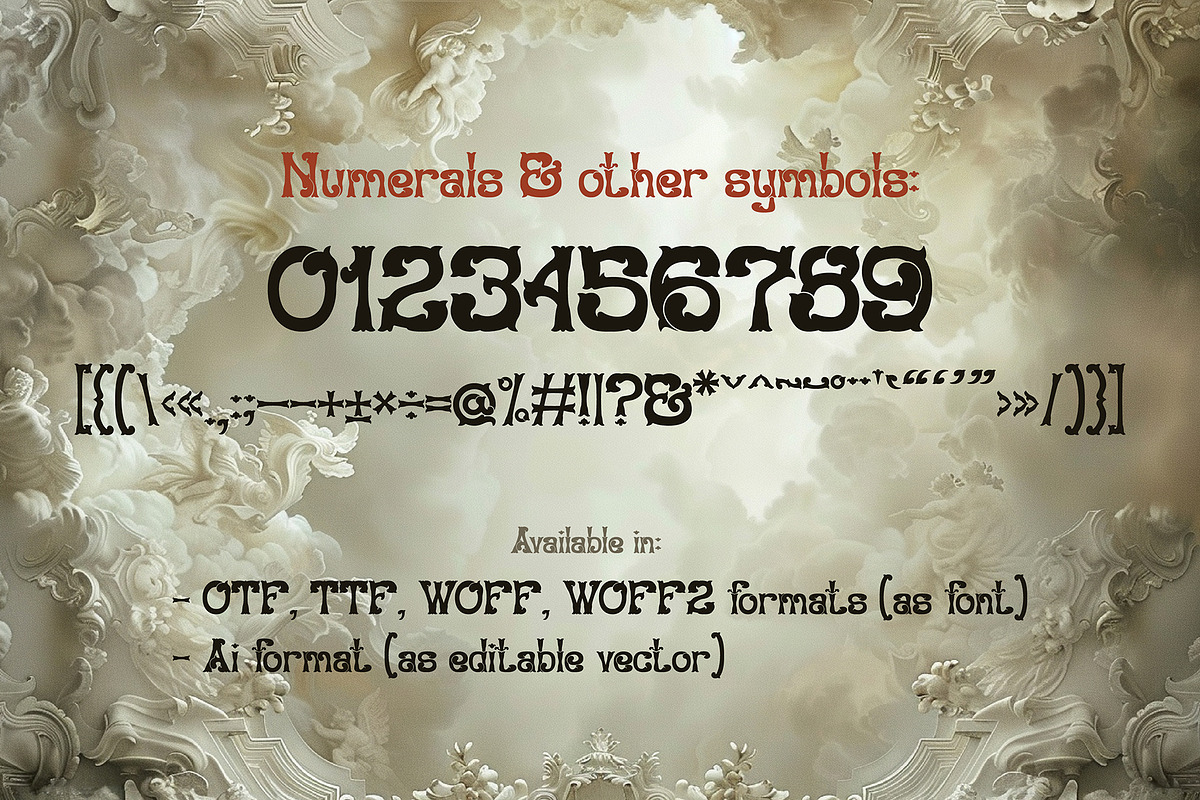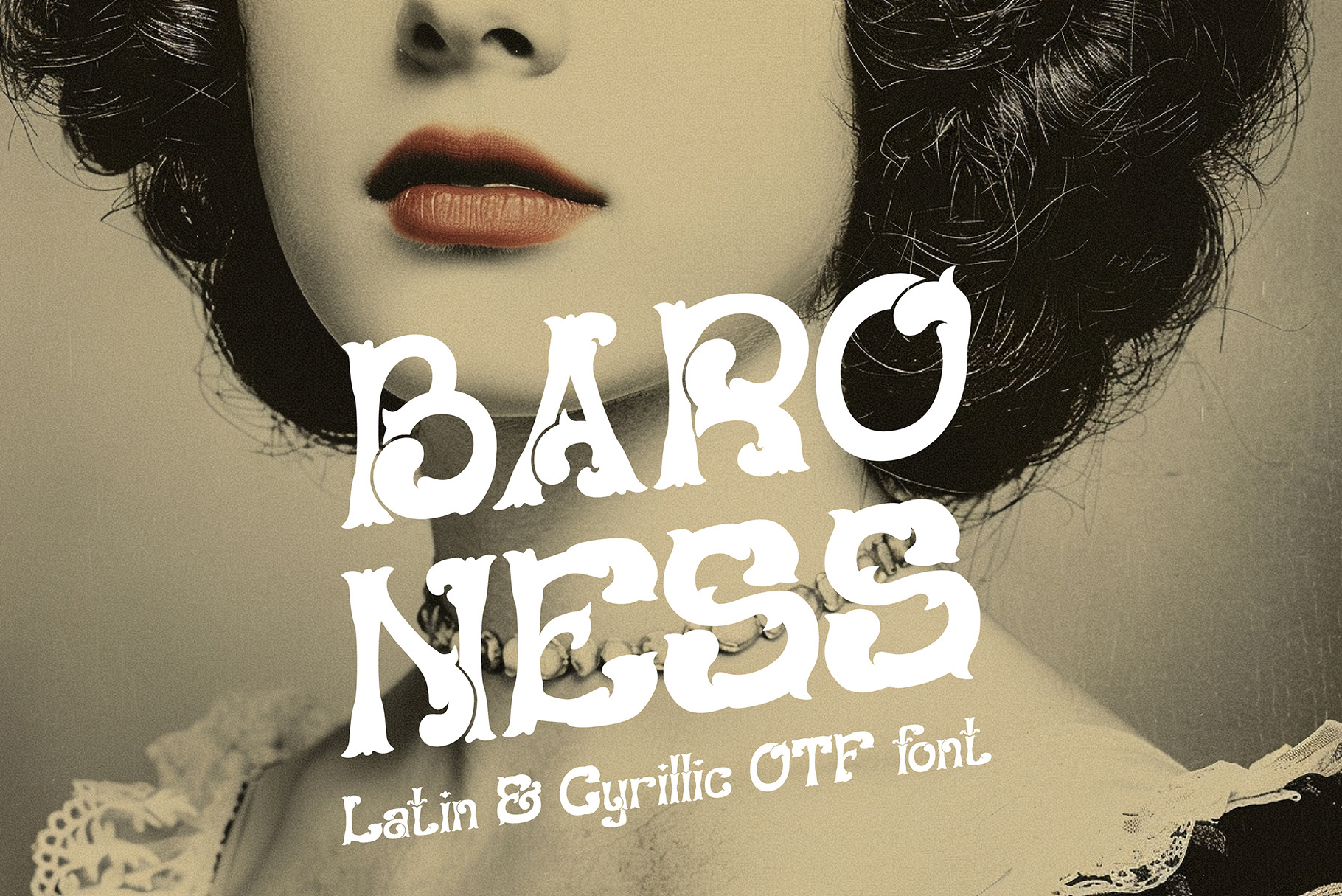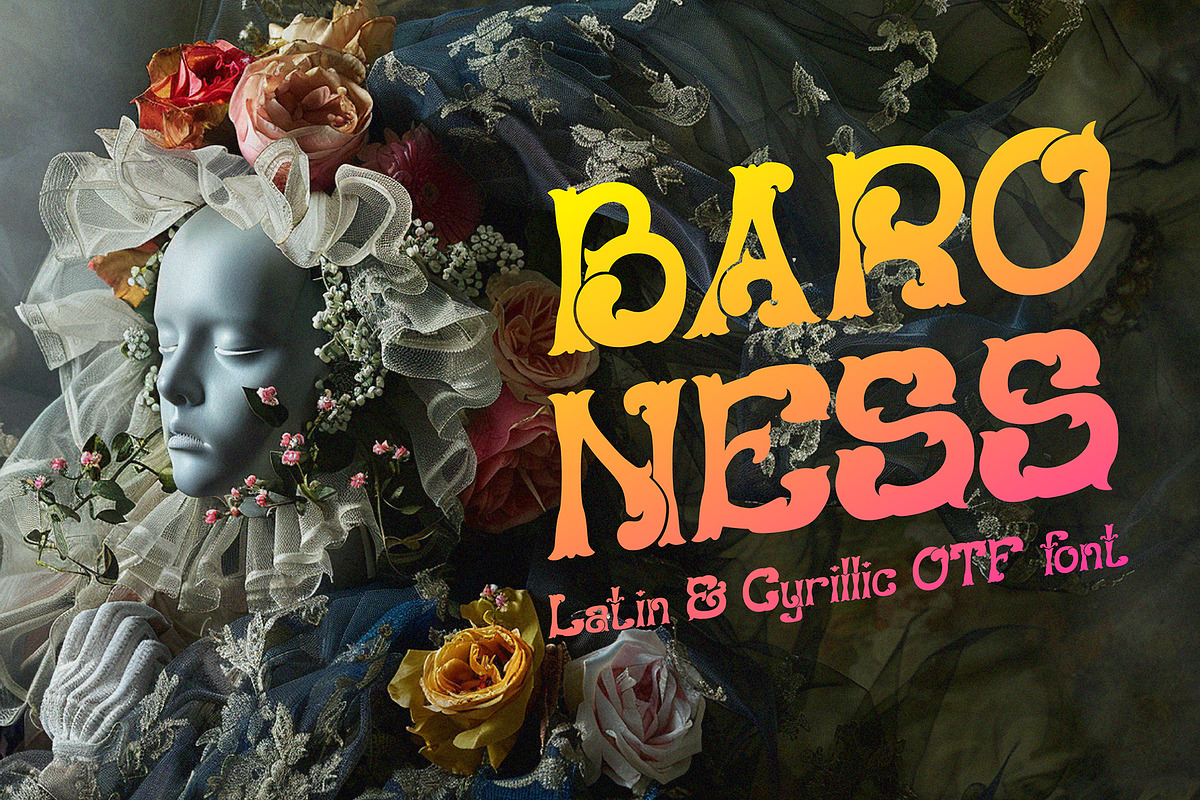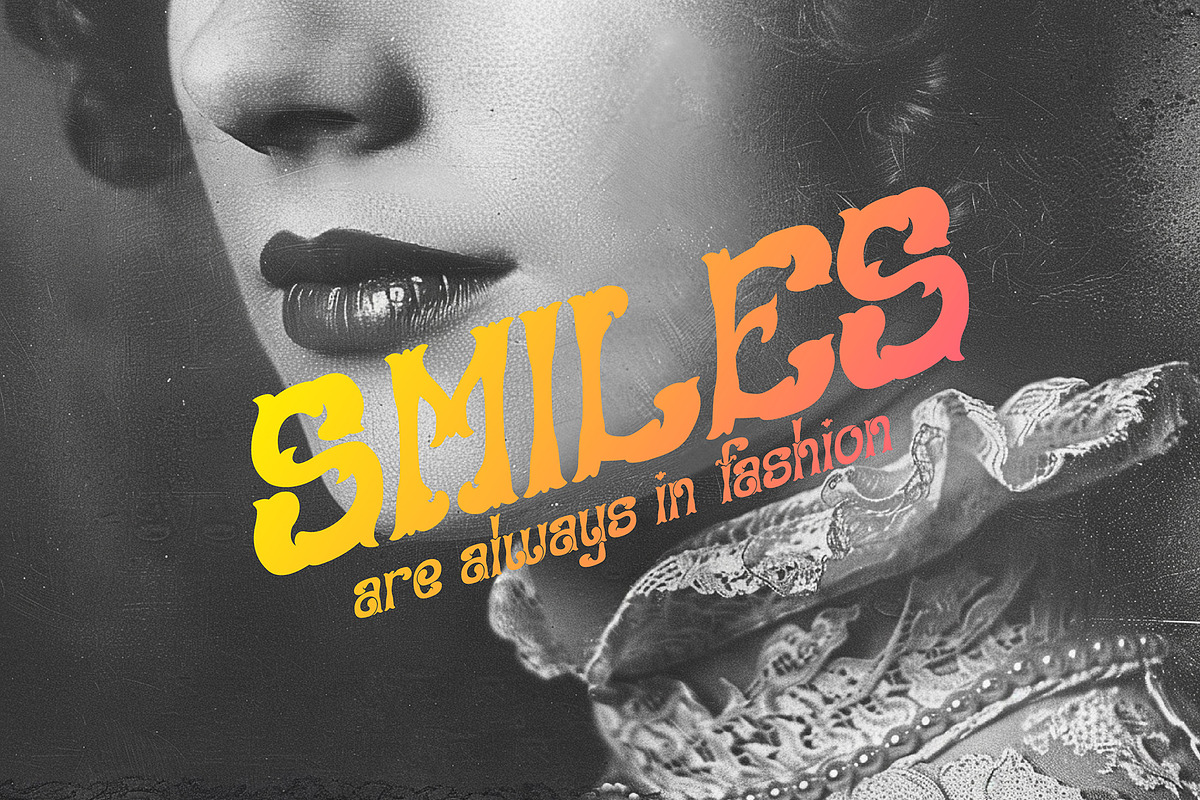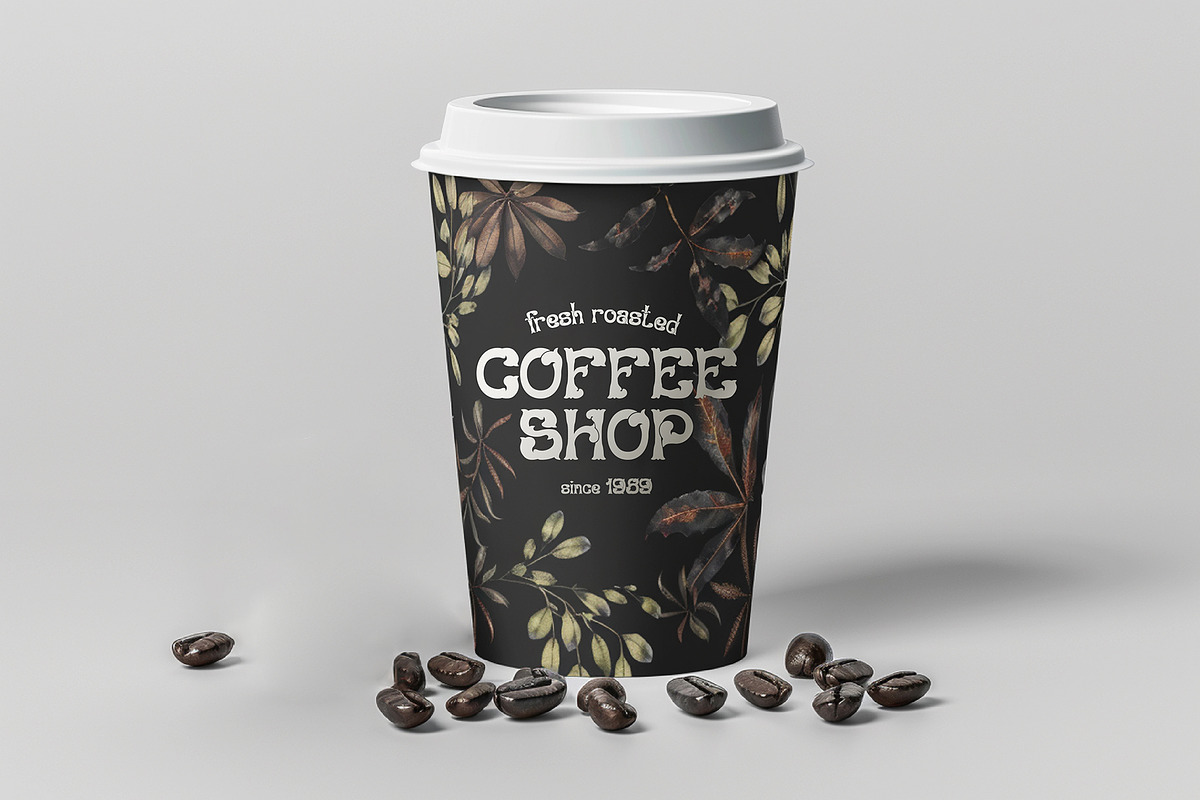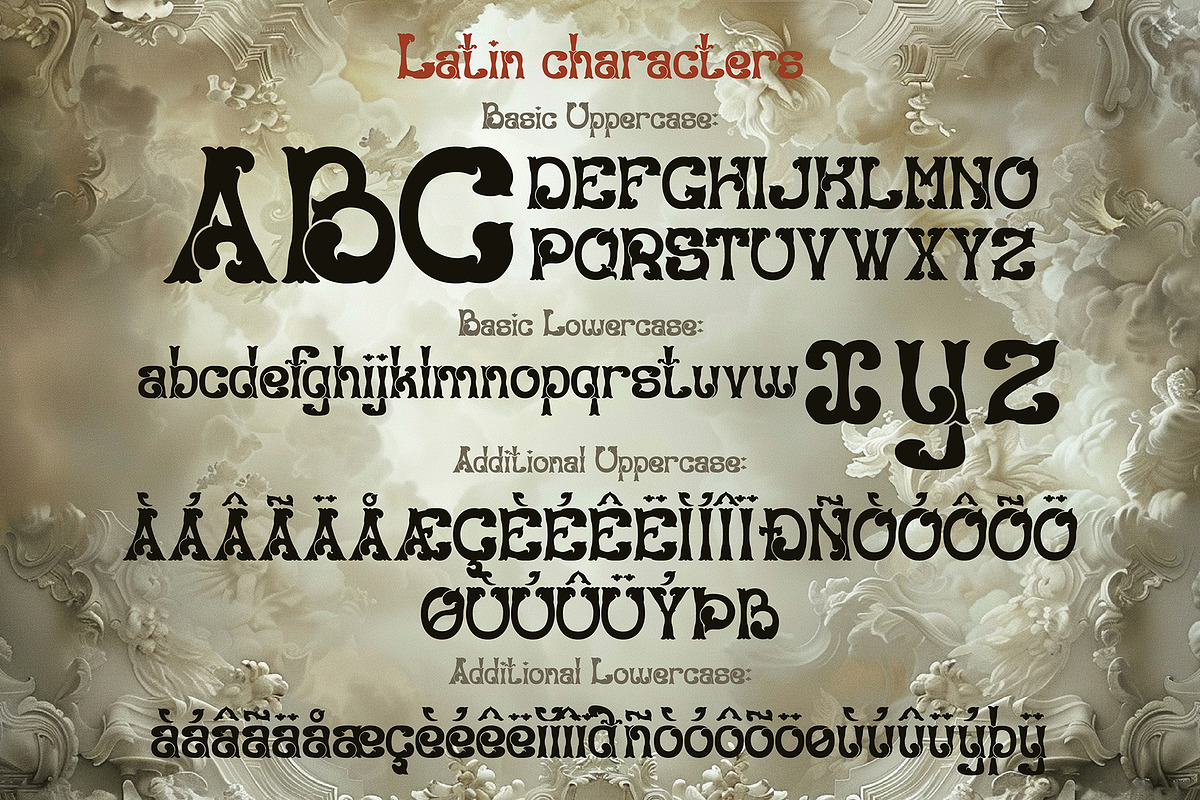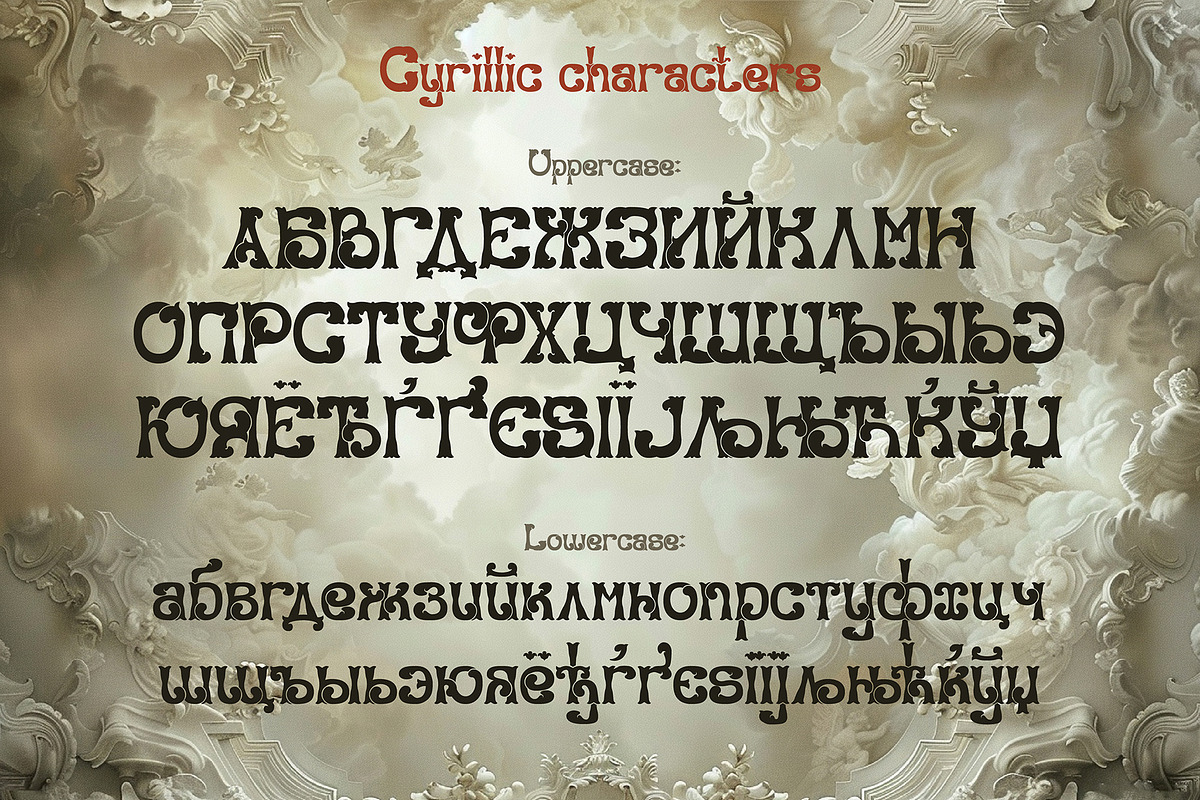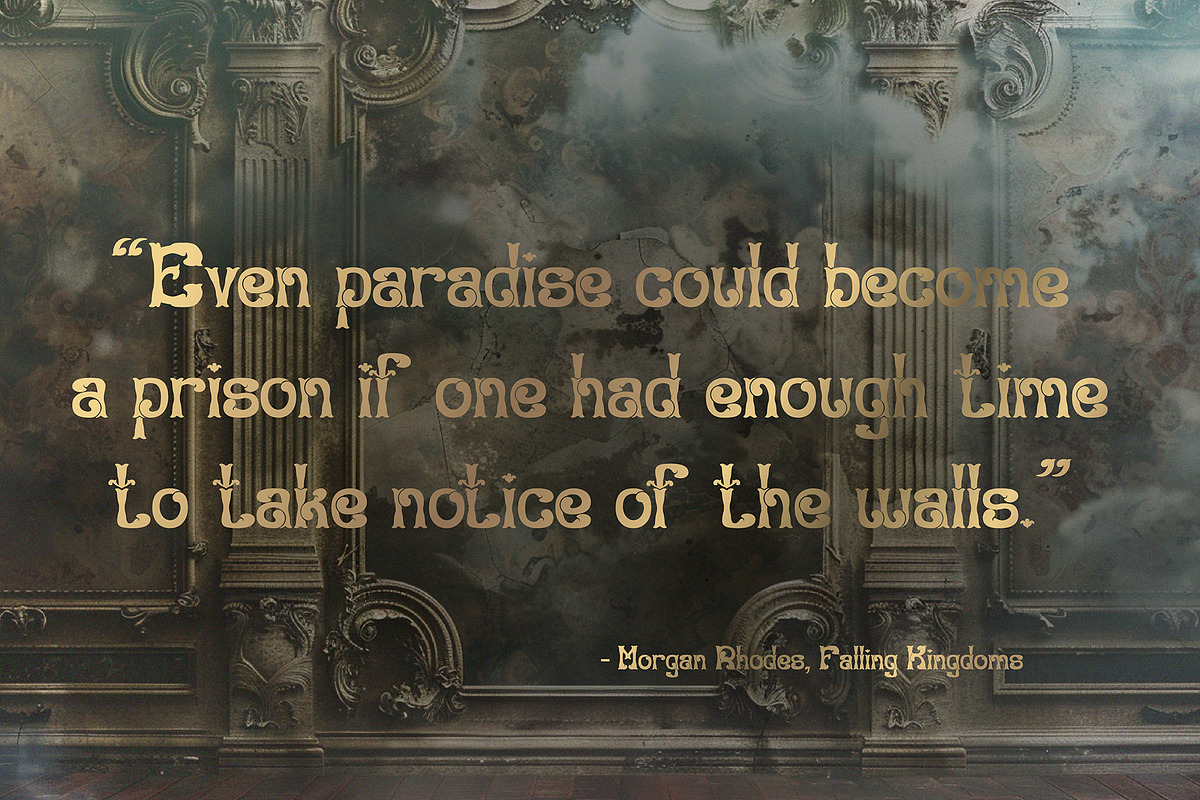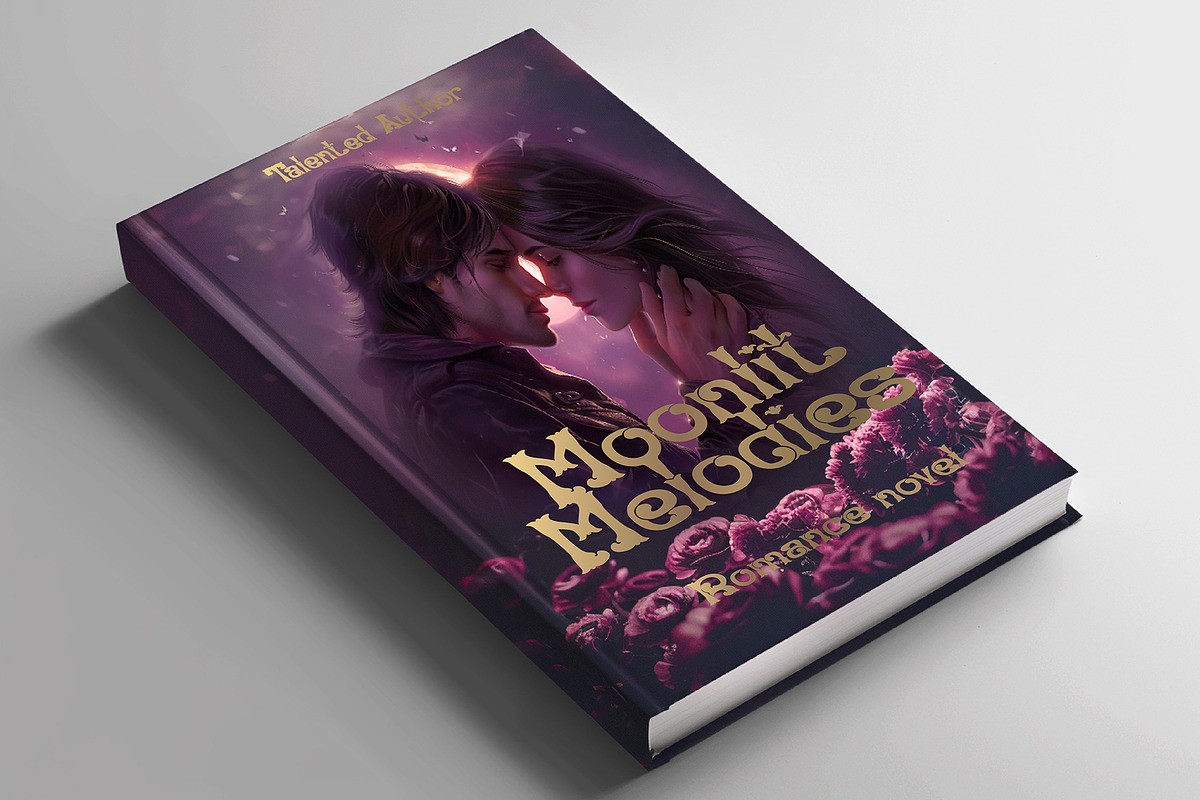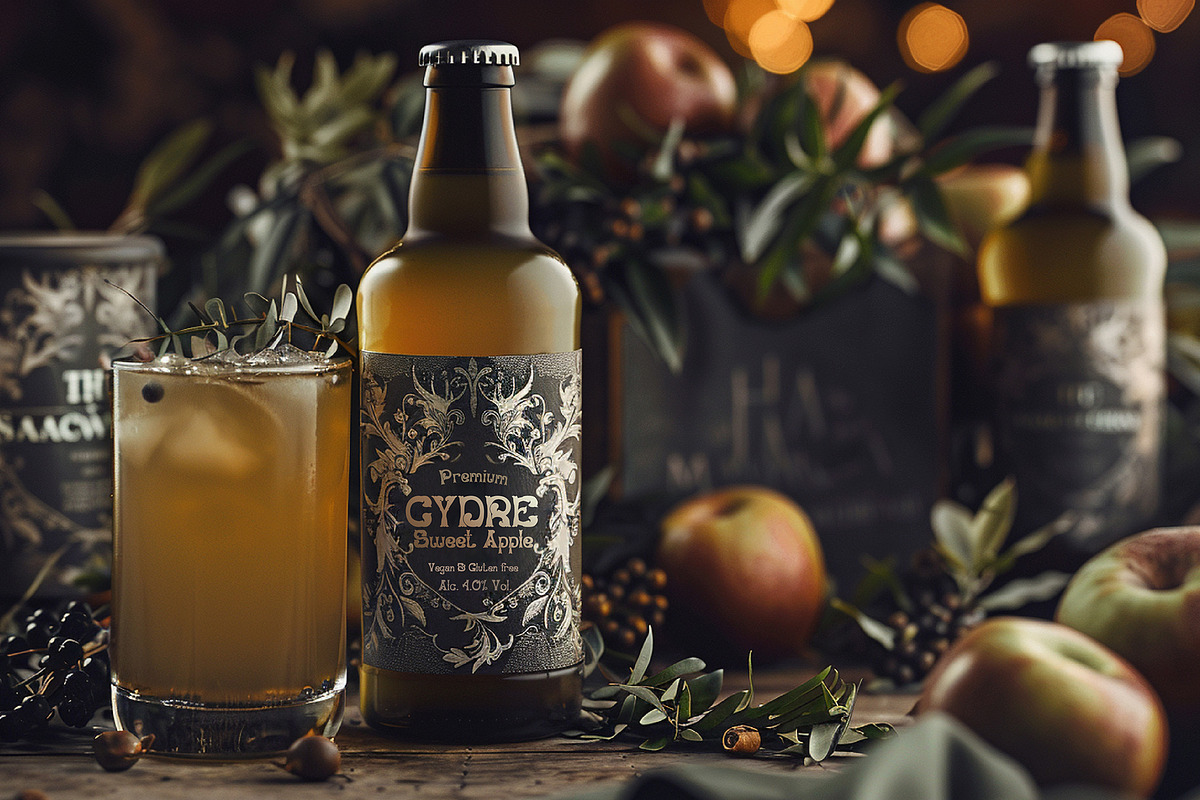
Baroness - stylized baroque font
Flourish font inspired by a baroque ornaments.
- support of basic LATIN & Cyrillic characters, numerals and some punctuation.
- UPPERCASE & LOWERCASE characters .